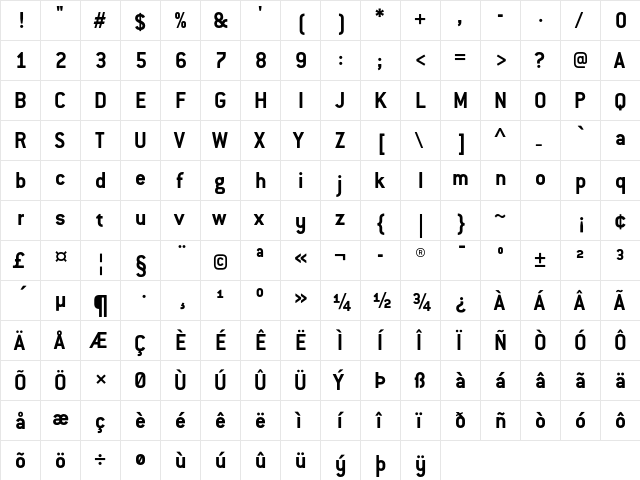
ConduitITCStd Bold
| Foundry | International Typeface Corporation |
| Designer | Mark van Bronkhorst, MvB Design |
Design Context for ConduitITCStd Typeface
ConduitITCStd is a composed and adaptable typeface that performs quietly and consistently across a wide range of design contexts. Its bold stroke weight gives it real presence on the page. Its narrow stance lets it pack a punch even in space-constrained designs.